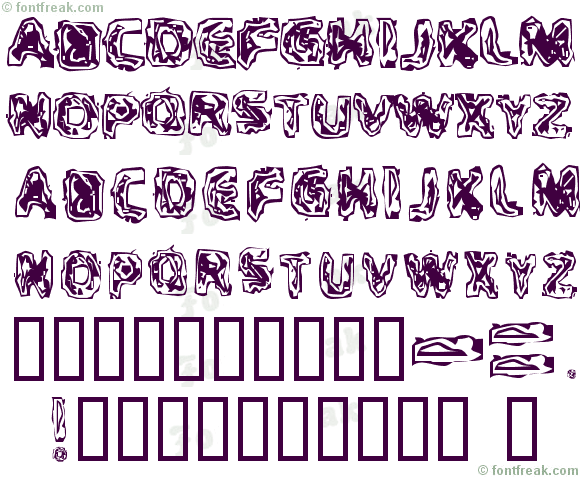
Critical Mass
The Critical Mass font by Rob Dobi is a distinctive display typeface that embodies a unique, slightly chaotic aesthetic. Released in 1997, this font features a playful, almost toxic style that captures attention with its irregular shapes and bold strokes. The design showcases a medium stroke weight with varying contrast, giving each letter a dynamic appearance that feels both energetic and offbeat. The spacing between characters is tight, creating a compact look that enhances its visual impact. The decorative elements of the font are reminiscent of organic forms, lending it an edgy vibe that can be both fun and provocative.
Critical Mass is particularly well-suited for a variety of creative projects. It can be effectively used in movie posters to evoke a sense of urgency or tension. Additionally, the font works wonderfully for music album covers, especially in genres that embrace alternative or underground aesthetics. Graphic designers may find it an excellent choice for branding projects, particularly for businesses looking to convey a bold, unconventional identity. Small business owners can utilize the font in promotional materials or product packaging to make a striking impression. Content creators will appreciate its capacity to add character to digital artwork or social media graphics.
The target audience for the Critical Mass font includes graphic designers, small business owners, and content creators who seek to stand out in a crowded marketplace. Its quirky style and free license make it accessible for anyone looking to infuse their projects with personality. The Critical Mass font free download offers a unique opportunity for creatives to experiment with a typeface that is both memorable and versatile, making it a standout choice for those wanting to leave a lasting impression.